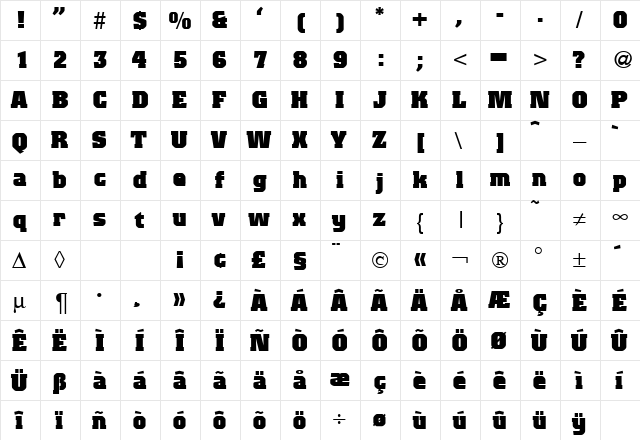
ColoradoBlack Regular
Design Context for ColoradoBlack Typeface
ColoradoBlack takes a measured approach to typography — its balanced proportions and neutral character make it a reliable workhorse for both digital and print work.
Pro Tip: Use ColoradoBlack in both headline and body roles to test its range before committing to a single application.